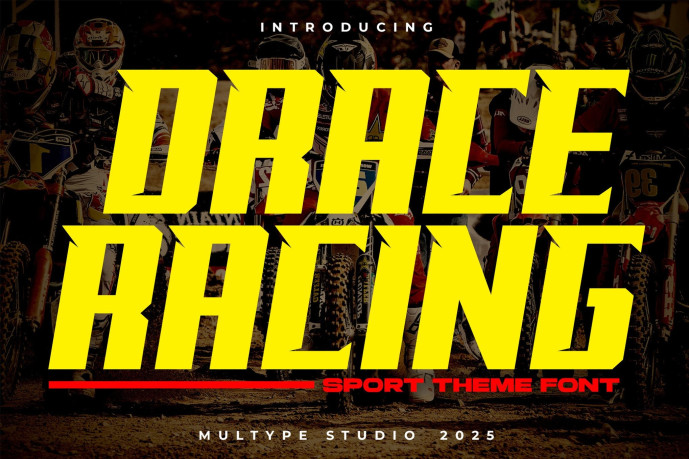
Drace Racing Sport Font
Designer: MultypeStudio
Drace Racing Sport Font is a racing theme font with sharp and consistent angles combined with a bold, hard, high, and strong style. So it looks fast, iconic and powerfull. Drace Racing it’s perfect for logotype racing product, racing game covers, sports events, automotive posters, automotive magazine covers, branding, product design, labels and other creative project.